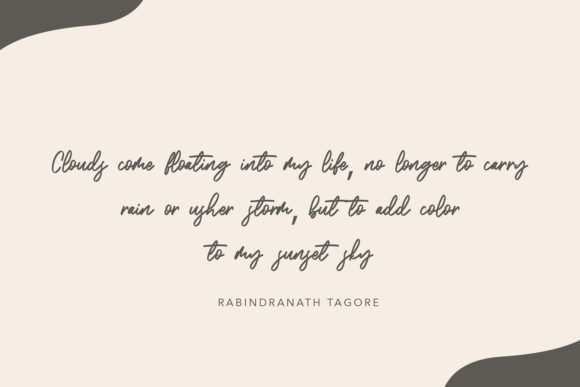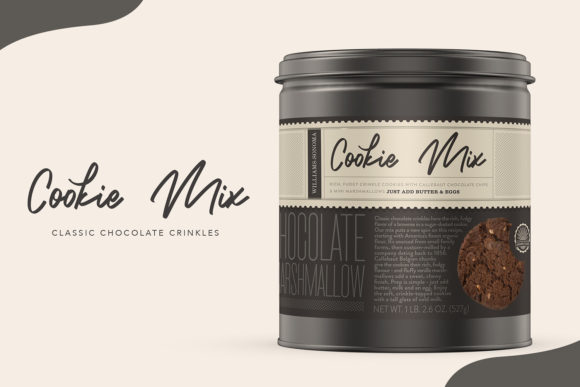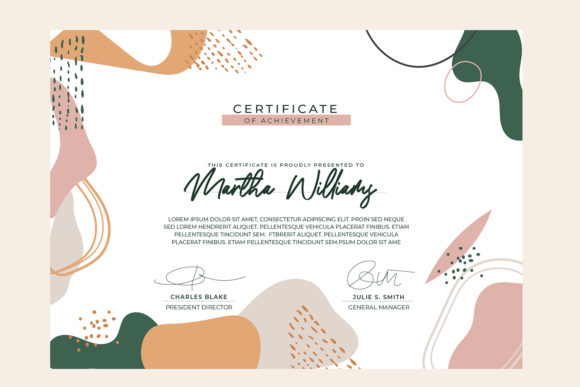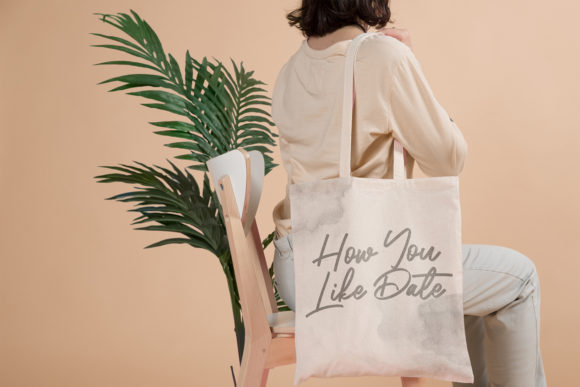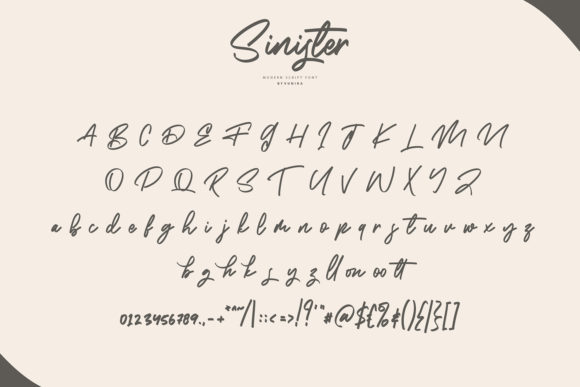
Sinister Font
About Sinister Font
Sinister is a modern brushed handwritten font. This gentle font will look gorgeous on a variety of design ideas. It will add a joyful and romantic touch to each of your projects!